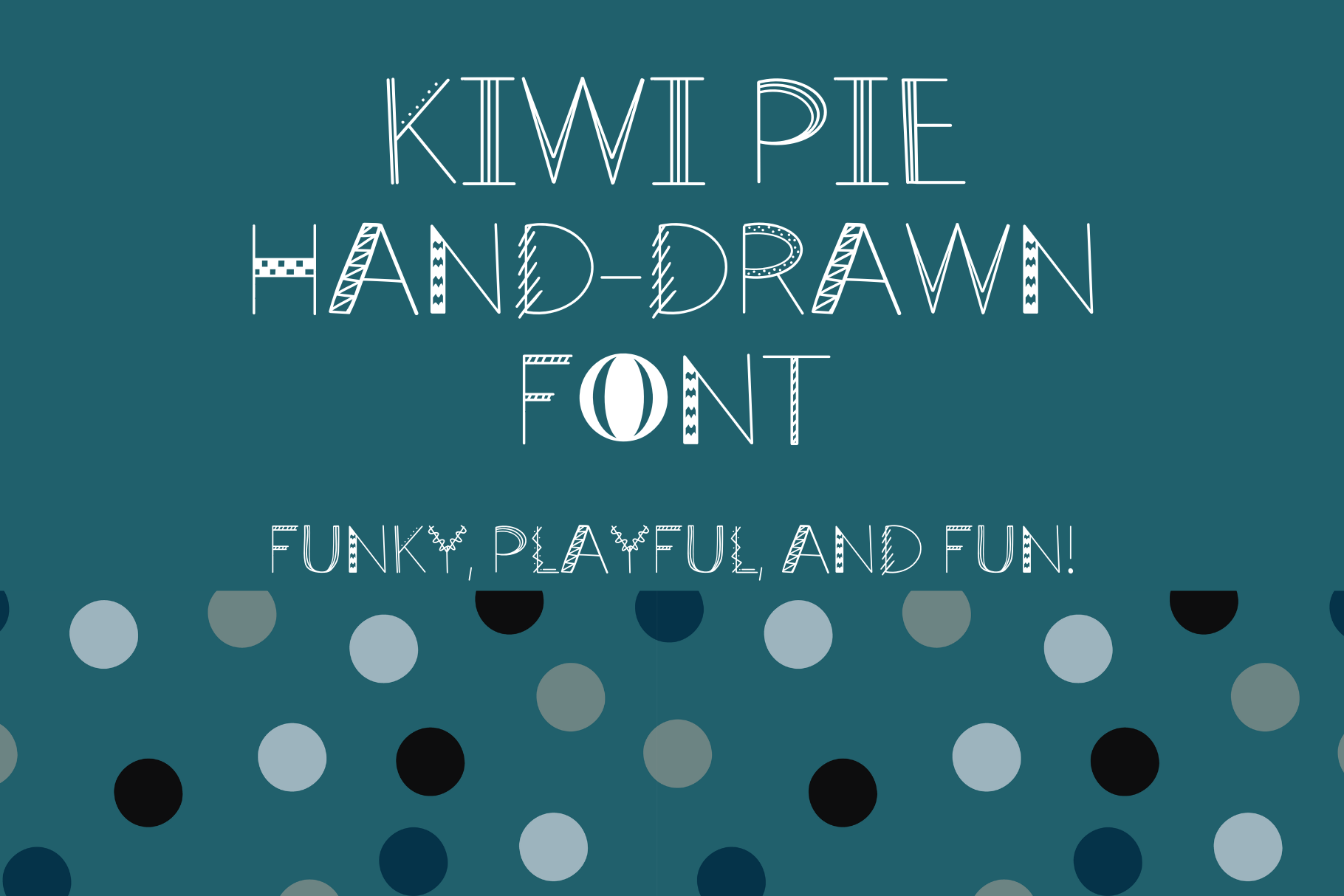
Kiwi Pie Funky Hand-drawn Font
Kiwi Pie Fun and Funky Hand-drawn Font - this font is a perfect display font for adding some life to your designs. Perfect for social media posts, POD items, t-shirt designs, invitations, name tags, and more.
Currently supports the English language and includes upper case, numbers, and symbols.